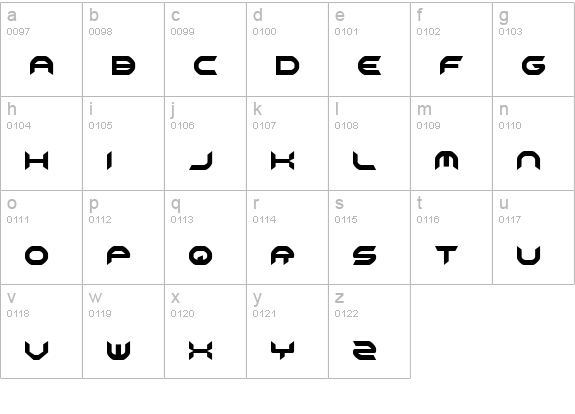
Omni Girl Condensed is a distinctive, condensed-width variant in the Omni typeface family \xE2\x80\x94 well suited to design and typography projects.
Omni Girl Condensed font is a sleek and modern typeface that exudes elegance and sophistication. Its condensed design makes it perfect for adding a touch of style to any project, from branding materials to web design. The clean lines and unique curves of Omni Girl Condensed font give it a distinct personality that sets it apart from other fonts. What makes Omni Girl Condensed font even more appealing is that it is available for free download at FontsMarket.com. This means you can easily access this beautiful font and use it in your projects without any cost. Whether you're working on a personal project or a professional design, Omni Girl Condensed font is sure to elevate your work with its charm and versatility. Download it now and unleash your creativity with this stunning typeface.